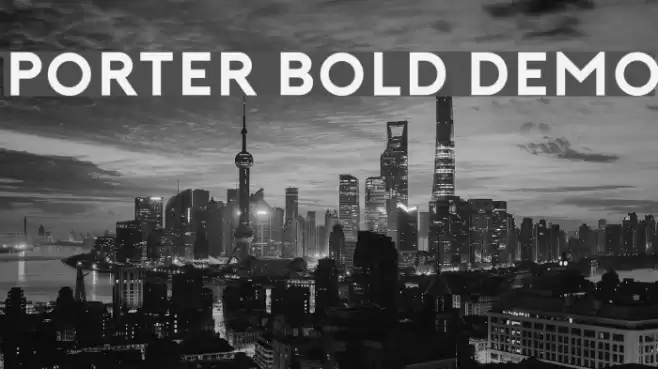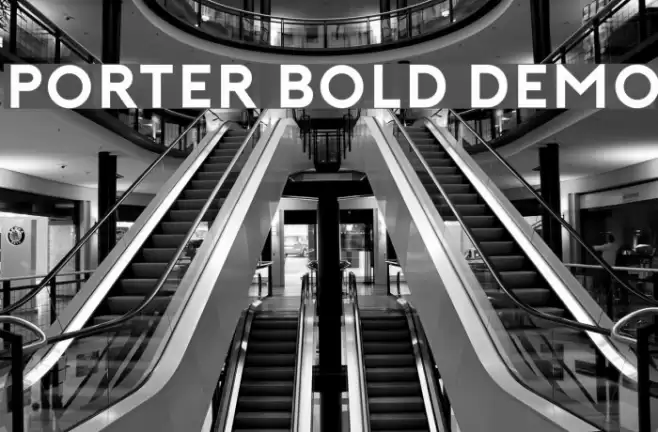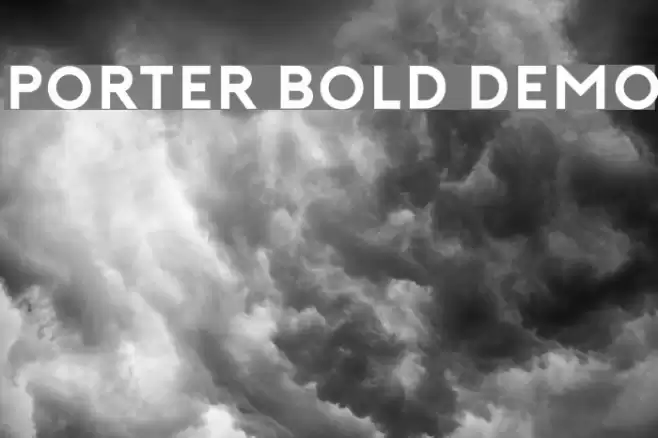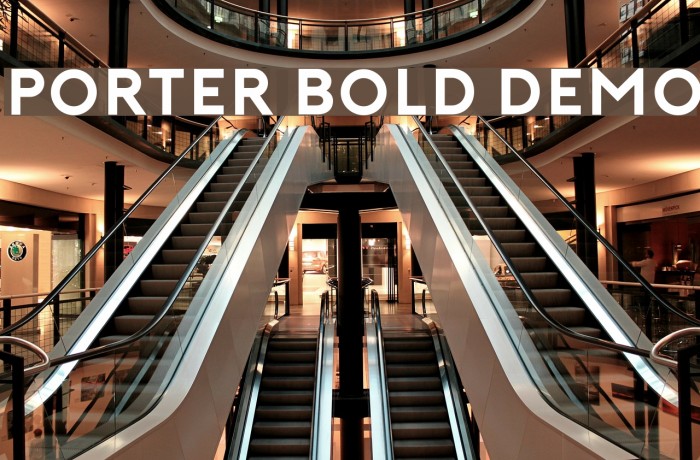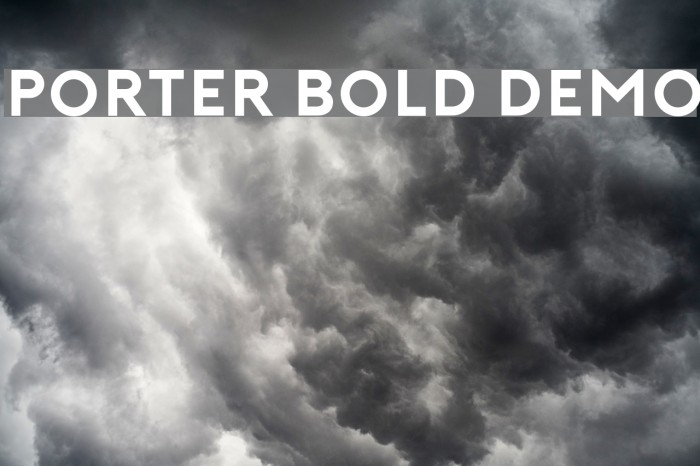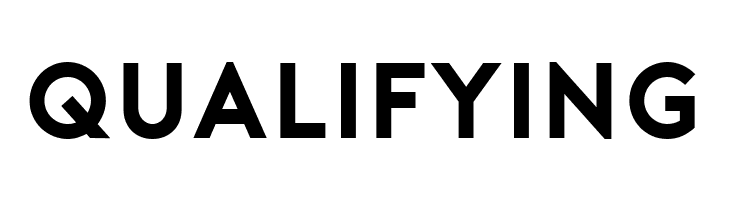
Porter Bold DEMO Font
Porter Bold DEMO Description
This font features a bold and modern sans-serif style with clean lines and a geometric structure. The characters are uniformly weighted, providing a strong and assertive appearance. Its design is minimalistic, focusing on clarity and readability, making it suitable for various digital and print applications. The uppercase and lowercase letters maintain a consistent height and width, ensuring a harmonious look across different text sizes. The numerals and special characters are designed to match the overall aesthetic, offering versatility in usage.
A bold, modern sans-serif font with clean lines and geometric structure from Uncategorized fonts.
- Proposed Projects: Ideal for branding, headlines, posters, and digital media where a strong, modern look is desired.
- Use Case: Headlines, Logos, Branding